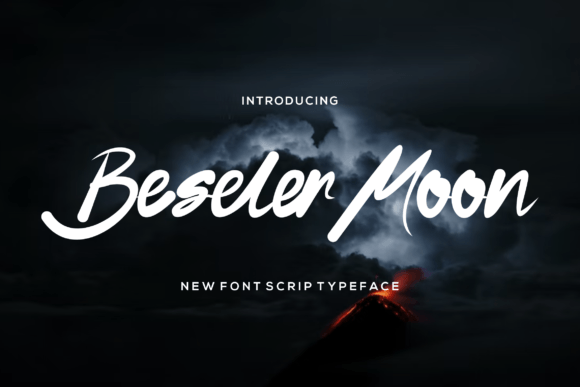
Beselermoon Font: Elevate Your Design with Elegance and Sophistication
In the world of typography, fonts play a crucial role in conveying the tone and personality of a brand, product, or service. Among the numerous fonts available, Beselermoon stands out as a unique handwritten font that exudes beauty, class, elegance, and modernity. This versatile font is perfect for a wide range of projects, from signature and stationery to logo design, wedding typography, magazine covers, and more.
What Makes Beselermoon Font Special?
- Handwritten Elegance: Beselermoon boasts a beautiful, handwritten style that adds a touch of sophistication to any design project.
- Classy and Modern: The font’s unique blend of classic and modern elements makes it perfect for designs that require a sense of luxury and contemporary flair.
- Versatile: Beselermoon is suitable for a wide variety of projects, including signature, stationery, logo design, wedding typography, magazine covers, book covers, website headers, clothing, branding, packaging design, and more.
10 Creative Ways to Use Beselermoon Font
- Signature Design: Add a personal touch to your signature with Beselermoon’s elegant and sophisticated style.
- Stationery and Letterheads: Elevate your brand’s correspondence with beautifully designed stationery and letterheads featuring Beselermoon.
- Logo Design: Create a lasting impression with a custom logo designed using Beselermoon’s unique and modern style.
- Wedding Typography: Make your special day even more memorable with stunning wedding typography featuring Beselermoon.
- Magazine and Book Covers: Stand out in the publishing industry with eye-catching magazine and book covers designed using Beselermoon.
- Website Headers: Enhance your website’s visual appeal with Beselermoon’s elegant and modern style.
- Clothing and Apparel: Add a touch of sophistication to your clothing and apparel designs with Beselermoon.
- Branding and Packaging: Create a cohesive brand identity with Beselermoon’s versatile and elegant style.
- Typography Quotes: Make a statement with beautifully designed typography quotes featuring Beselermoon.
- Social Media Graphics: Elevate your social media presence with stunning graphics designed using Beselermoon.
Tips and Tricks for Using Beselermoon Font
- Pair with Other Fonts: Experiment with pairing Beselermoon with other fonts to create a unique and visually appealing design.
- Adjust Font Size and Color: Play with font sizes and colors to add depth and emphasis to your design.
- Use in Combination with Images: Combine Beselermoon with high-quality images to create stunning visual content.
The Benefits of Using Beselermoon Font
- Unique and Memorable: Beselermoon’s distinctive style ensures that your design stands out and leaves a lasting impression.
- Elegant and Sophisticated: The font’s elegant and sophisticated style makes it perfect for luxury brands and high-end designs.
- Versatile and Flexible: Beselermoon’s versatility allows you to use it across various design projects and applications.
In conclusion, Beselermoon font is a unique and elegant handwritten font that can elevate your design projects to the next level. Its versatility, sophistication, and modernity make it perfect for a wide range of applications. Whether you’re a designer, entrepreneur, or simply looking for a beautiful font to use in your projects, Beselermoon is an excellent choice.